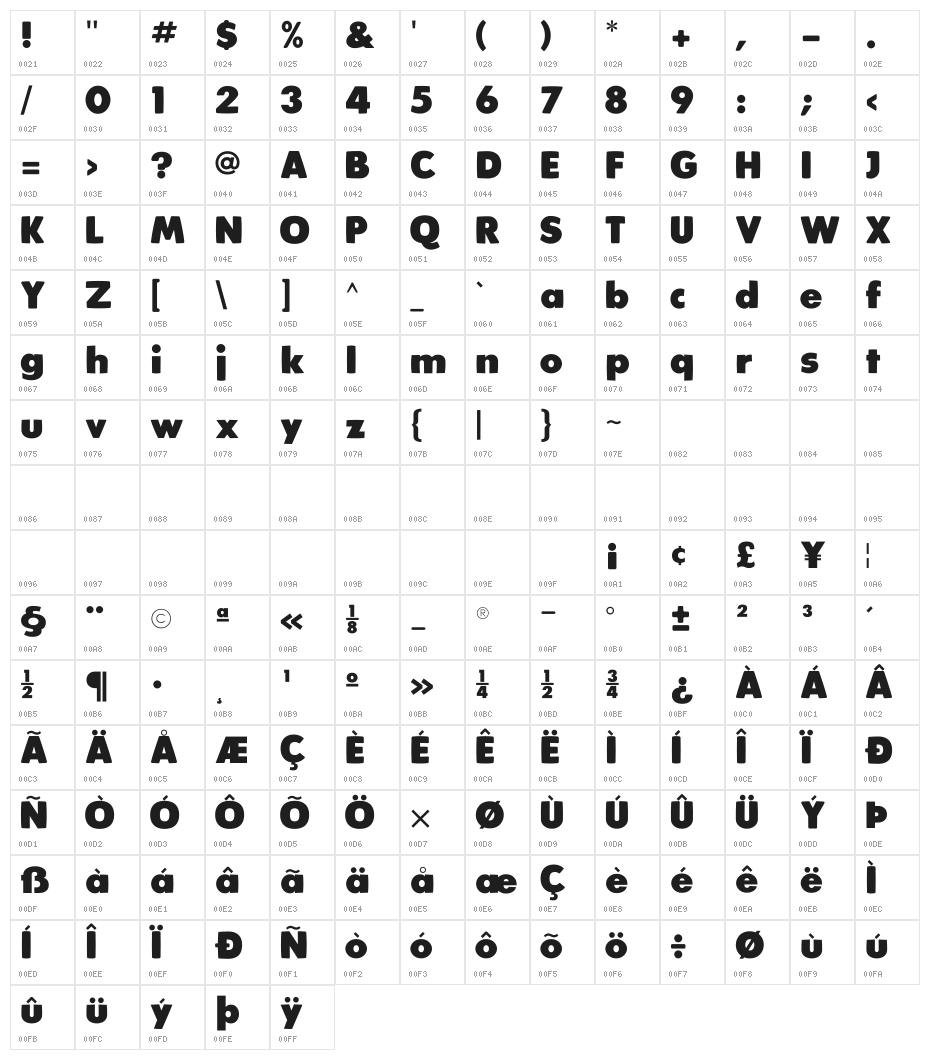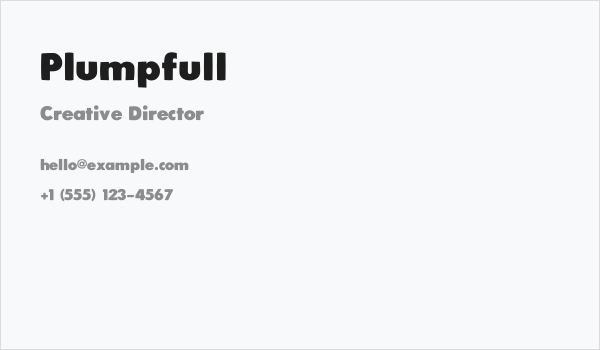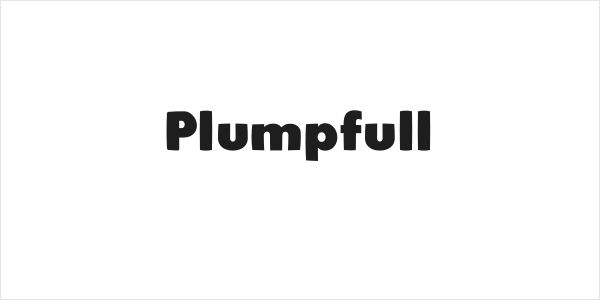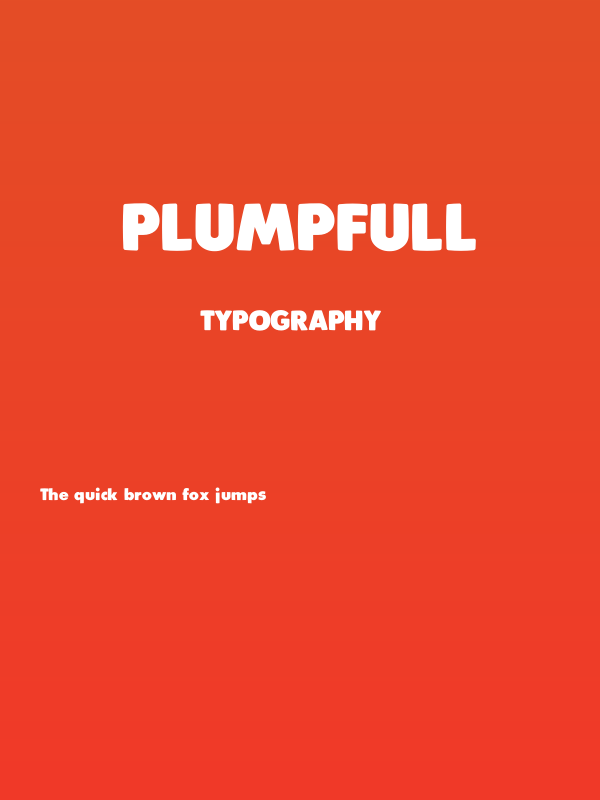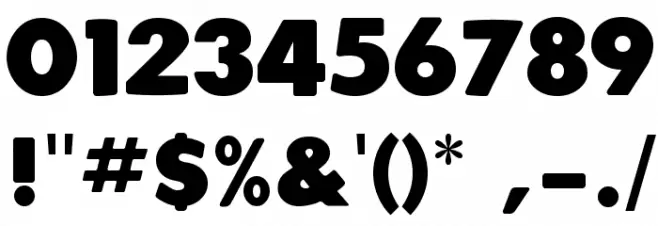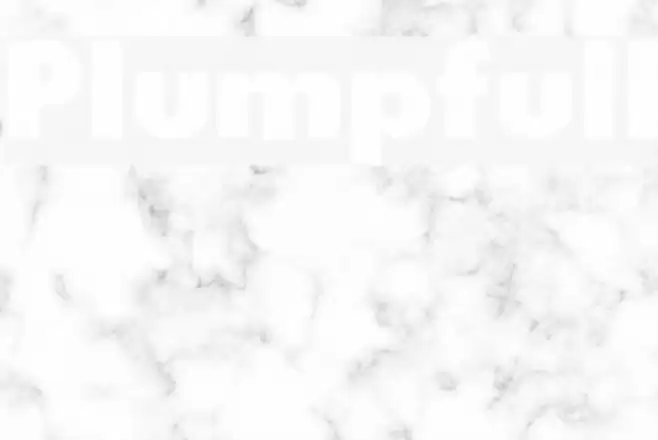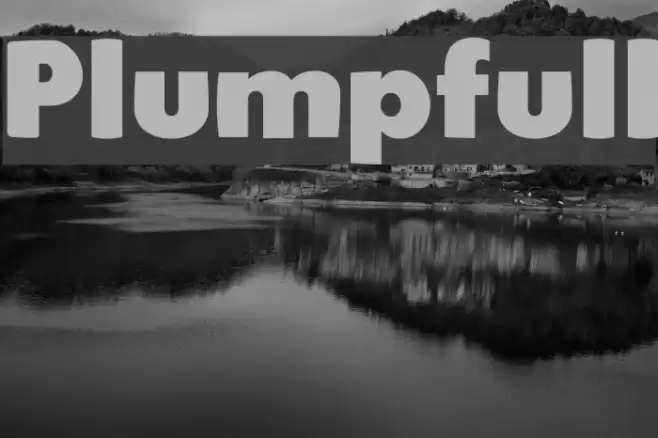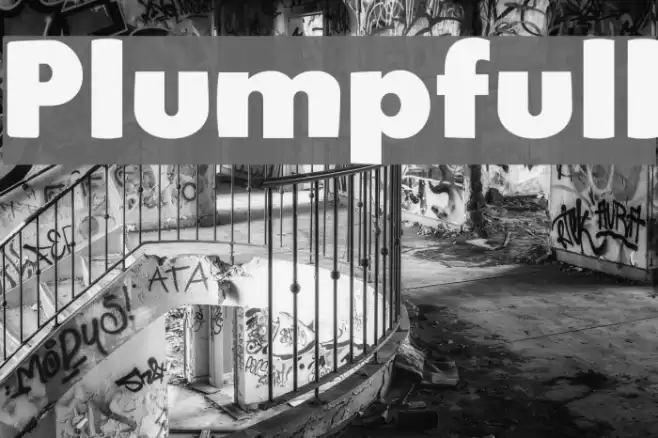
Plumpfull Font
Plumpfull Description
This font features bold, rounded characters that convey a sense of friendliness and approachability. The letters are thick and have a uniform stroke width, giving them a strong presence on the page. The rounded edges soften the overall look, making it suitable for playful and informal designs. The numerals and special characters maintain the same boldness, ensuring consistency across all elements. The font's style is modern and slightly whimsical, making it ideal for projects that require a touch of fun and creativity.
| Proposed Projects | Ideal for children's books, playful branding, casual invitations, and social media graphics. |